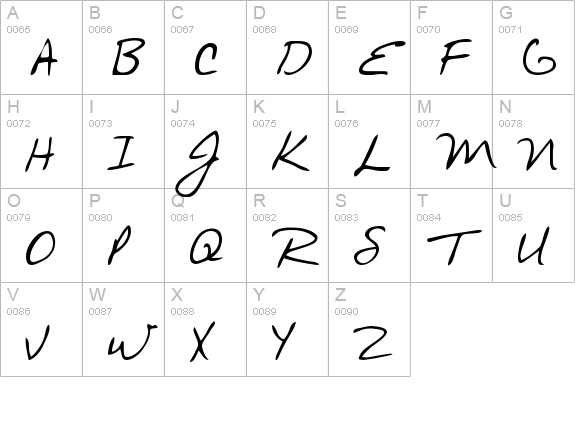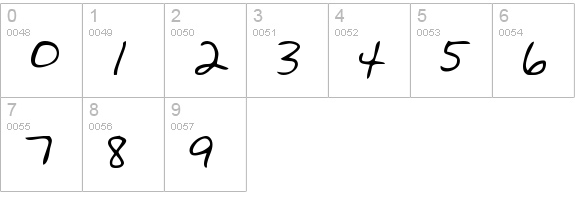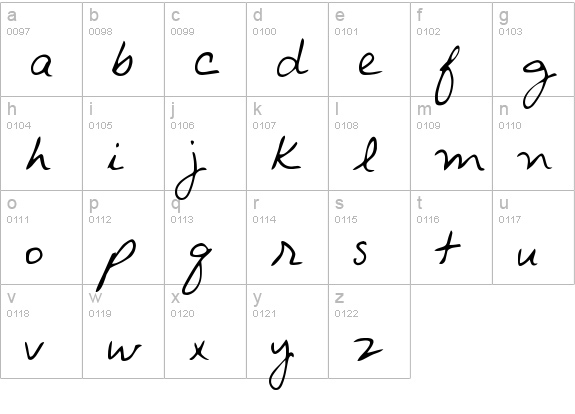
Avant que... Font Details
Avant que... font is a stunning and elegant typeface that exudes sophistication and modernity. With its sleek lines and stylish curves, this font is perfect for adding a touch of class to any design project. Whether you're creating a logo, poster, or website, Avant que... font will make your text stand out and captivate your audience. What makes Avant que... font even more appealing is that it is available for free download at FontsMarket.com. This means you can easily access this beautiful typeface and use it in your projects without any cost. Don't miss out on the opportunity to enhance your designs with the exquisite Avant que... font – download it now and elevate your creative work to the next level.